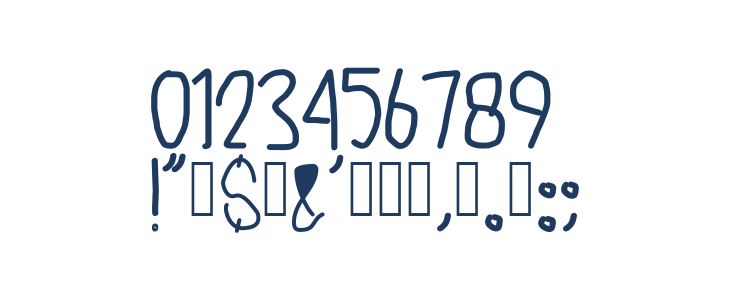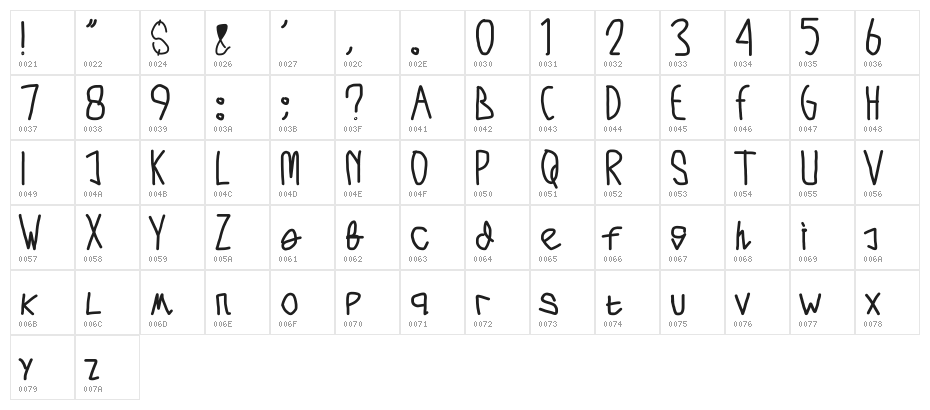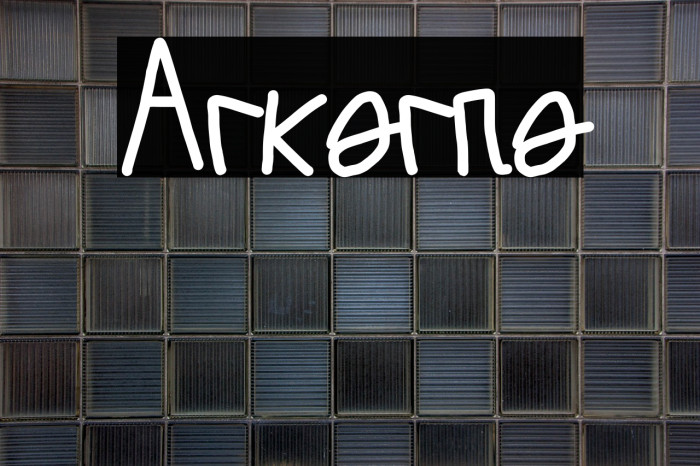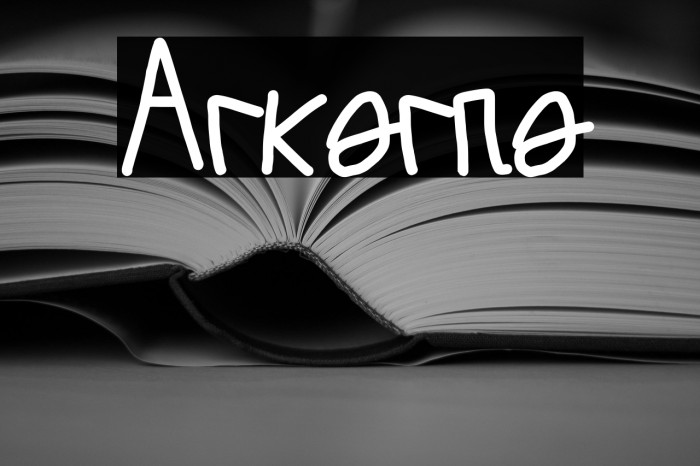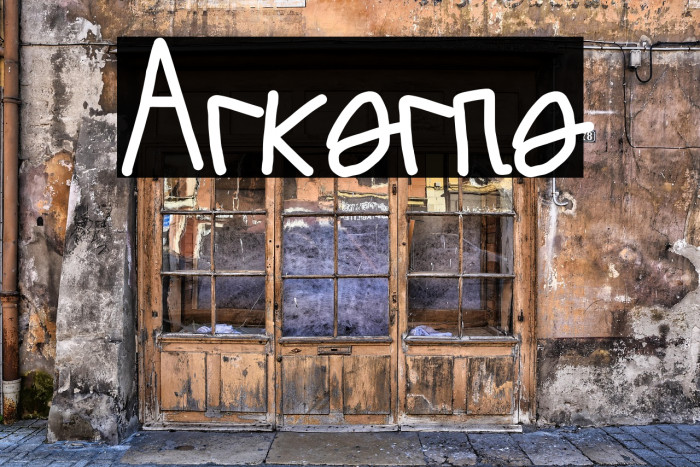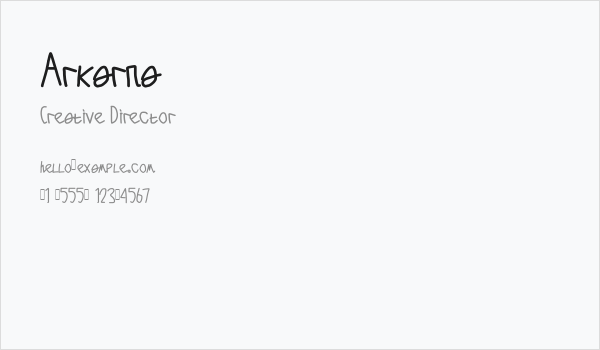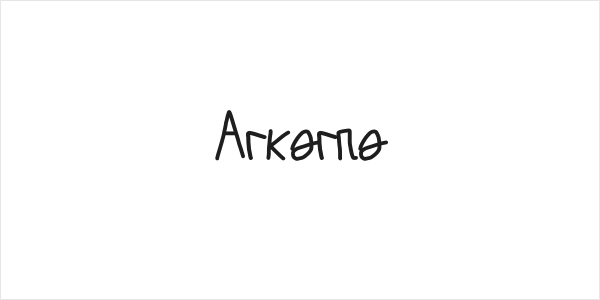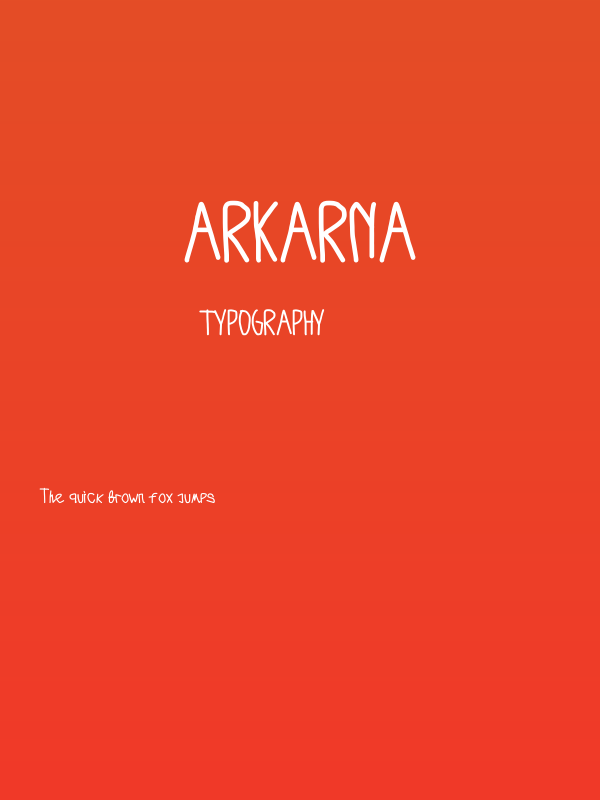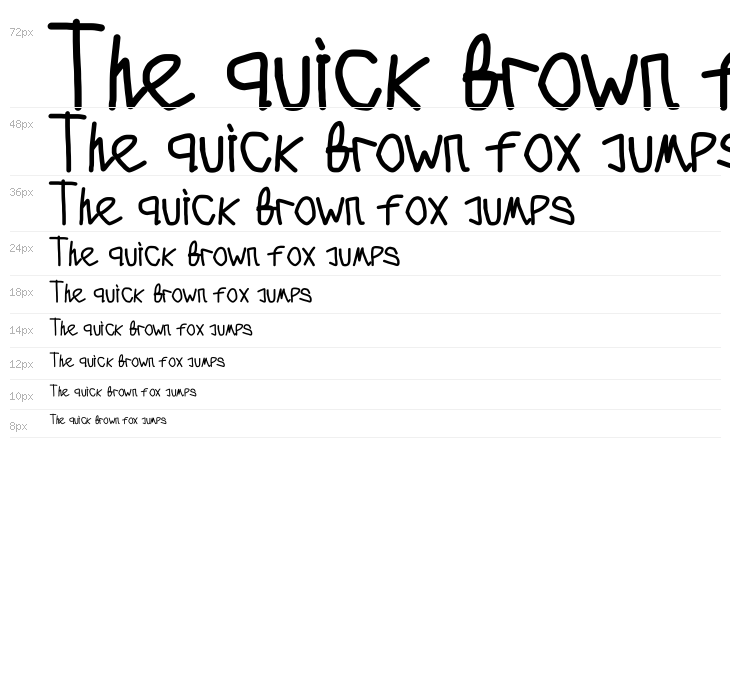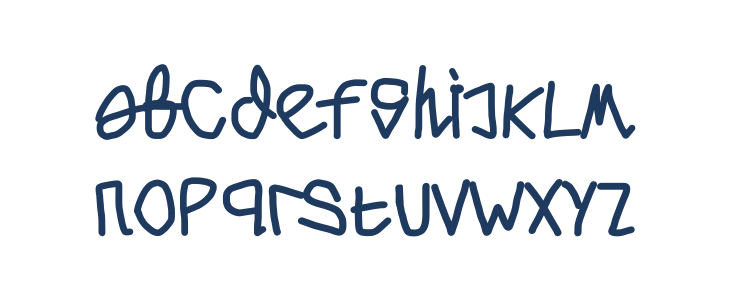
Arkarna Font
Arkarna Description
This font features a playful and quirky handwritten style with a casual and informal appearance. The characters are unevenly shaped, giving it a unique and artistic flair. The uppercase letters are tall and narrow, while the lowercase letters have a more rounded and relaxed form. The numbers are consistent with the overall style, maintaining the same playful and irregular characteristics. Special characters are creatively designed, adding to the font's whimsical nature. This font is perfect for projects that require a personal touch and a sense of fun.
| Proposed Projects | Ideal for greeting cards, children's books, creative posters, and playful branding. |